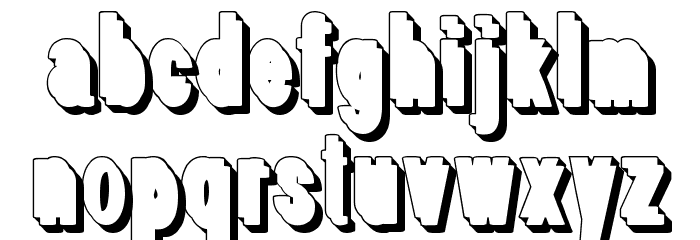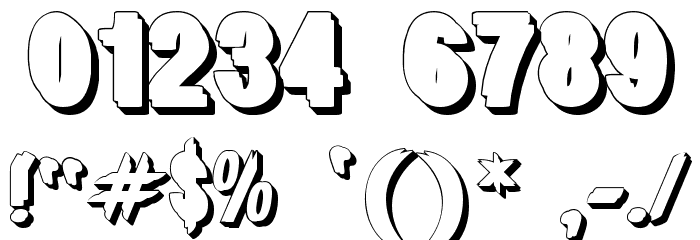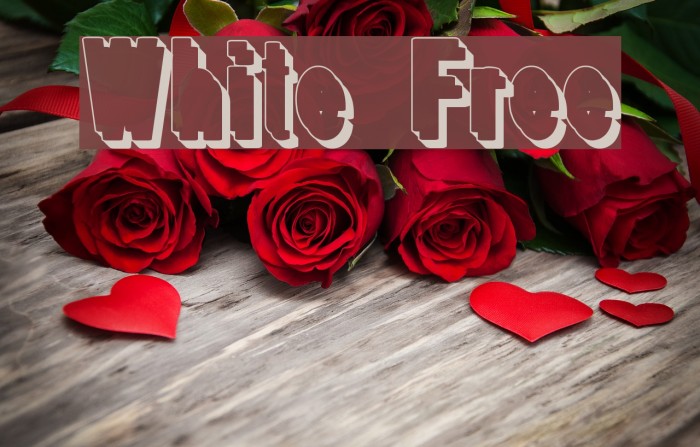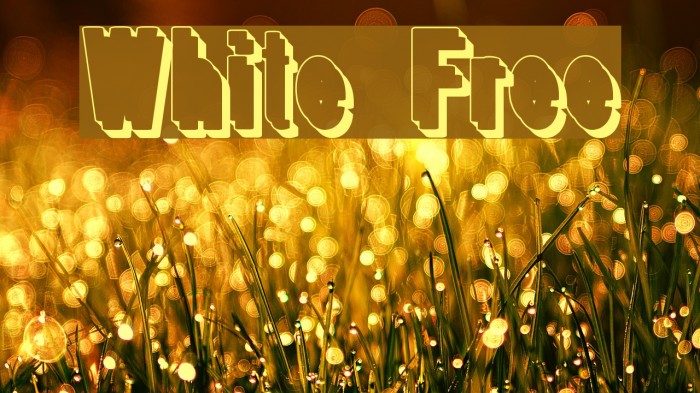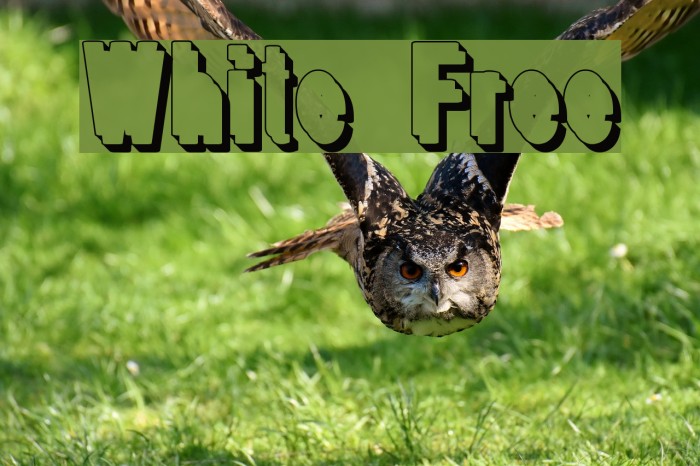
White Free Font
This bold and playful font features a three-dimensional effect with a shadow that gives it a striking, standout appearance. The characters are thick and blocky, with a strong presence that makes them ideal for attention-grabbing designs. The uppercase and lowercase letters maintain a consistent style, with rounded edges that soften the overall look. Numbers and special characters are included, matching the bold and impactful style of the letters. The font's shadow effect adds depth, making it suitable for designs that require a sense of fun and creativity.
A bold, 3D-effect font with a playful and impactful style.
- Proposed Projects: Ideal for posters, headlines, children's books, and any design needing a fun, eye-catching font.